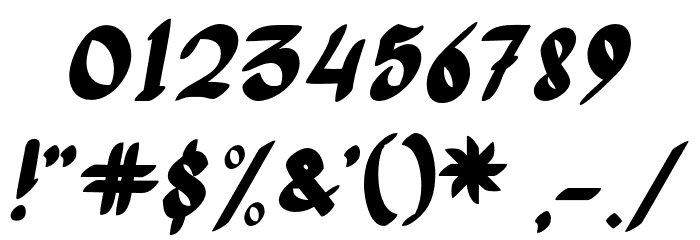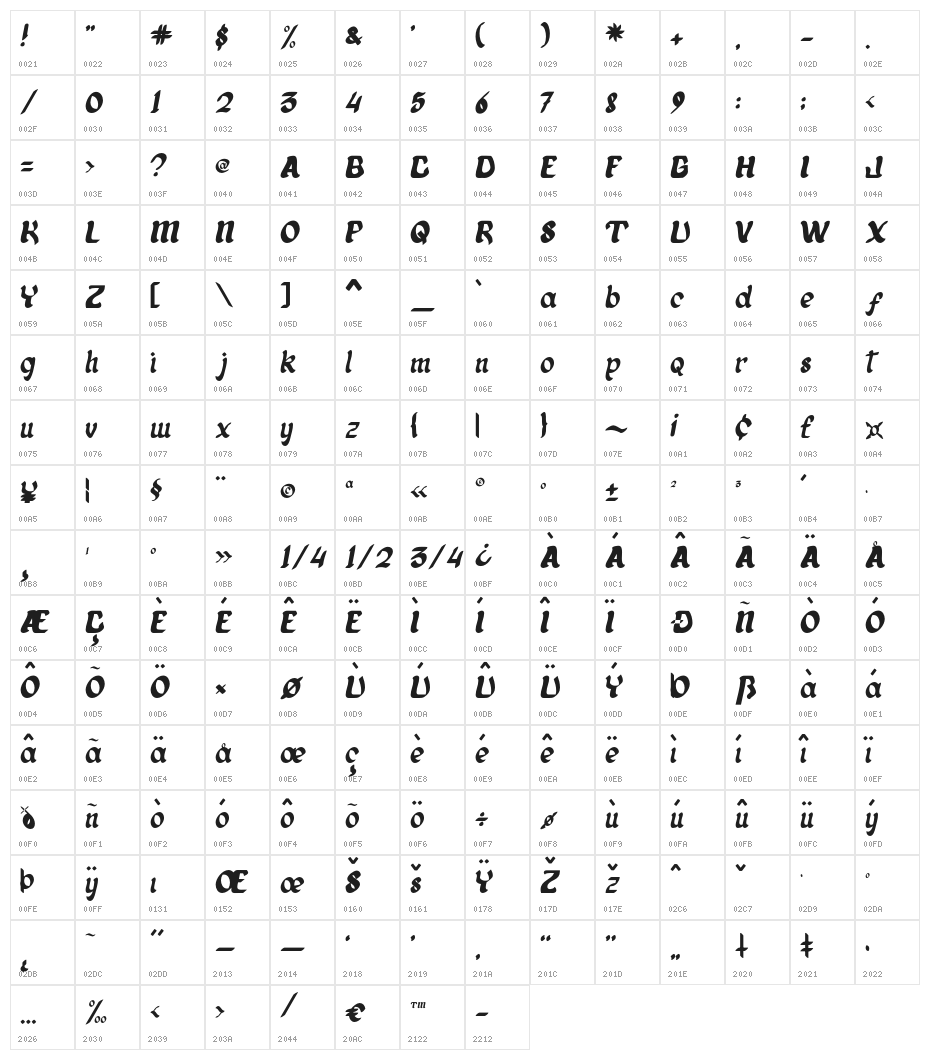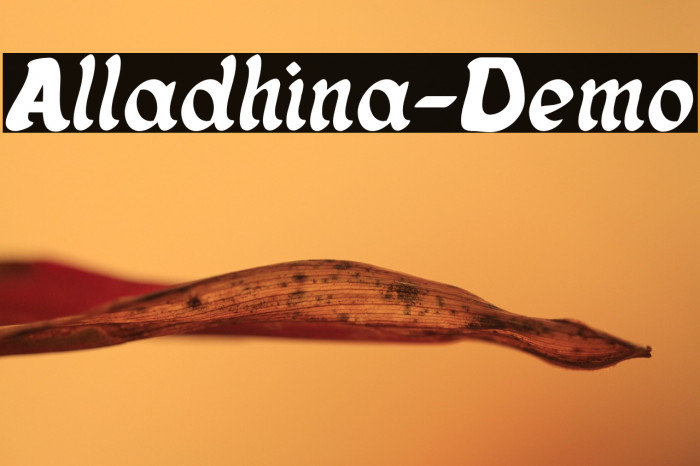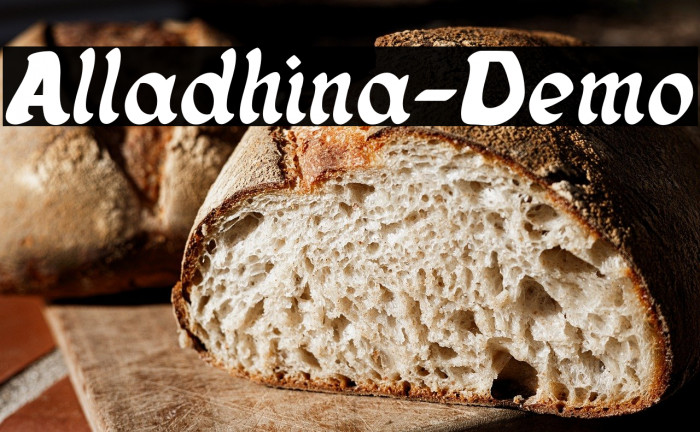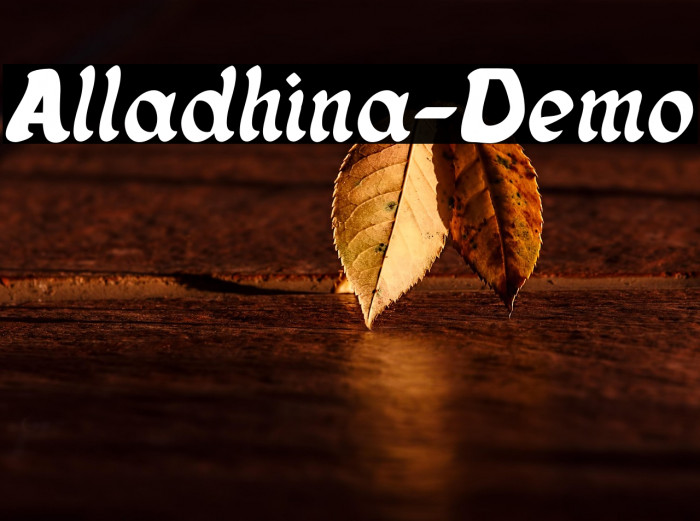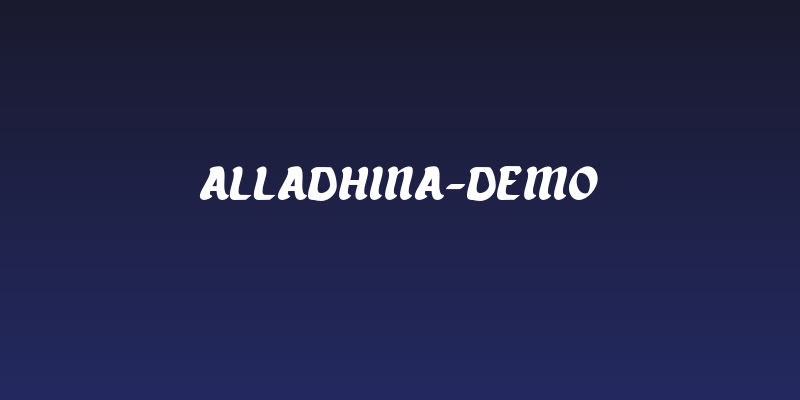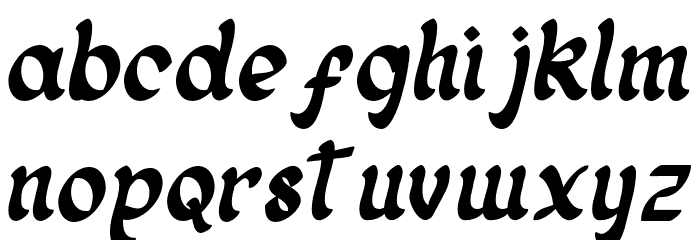
Alladhina-Demo Font
Alladhina-Demo Description
This font features a bold and dynamic script style with a strong presence. The characters exhibit a calligraphic influence, with thick strokes and sharp edges that create a sense of movement and energy. The uppercase letters are particularly striking, with a slightly condensed form that enhances their boldness. The lowercase letters maintain a consistent style, offering a smooth flow that complements the uppercase. Numbers and special characters are designed to match the overall aesthetic, ensuring a cohesive look across all elements. The font's unique style makes it suitable for projects that require a touch of elegance and flair.